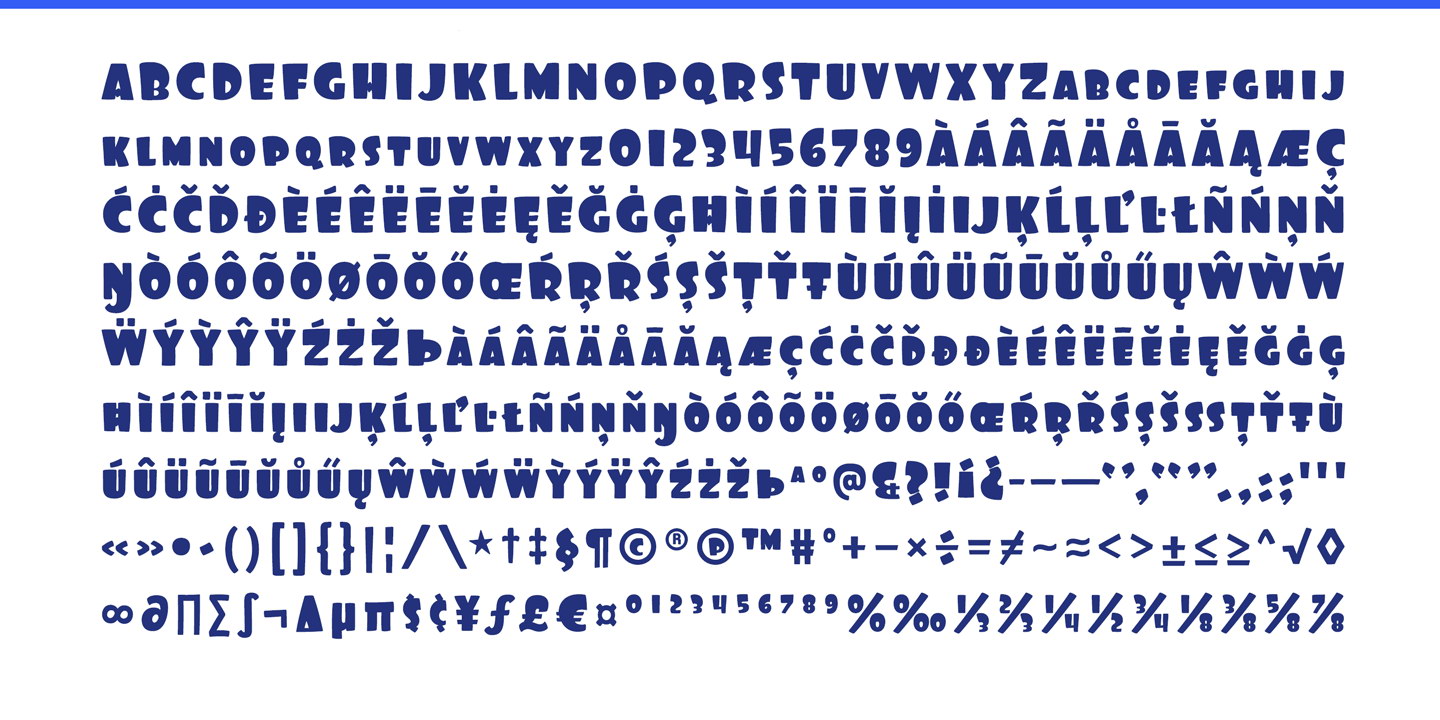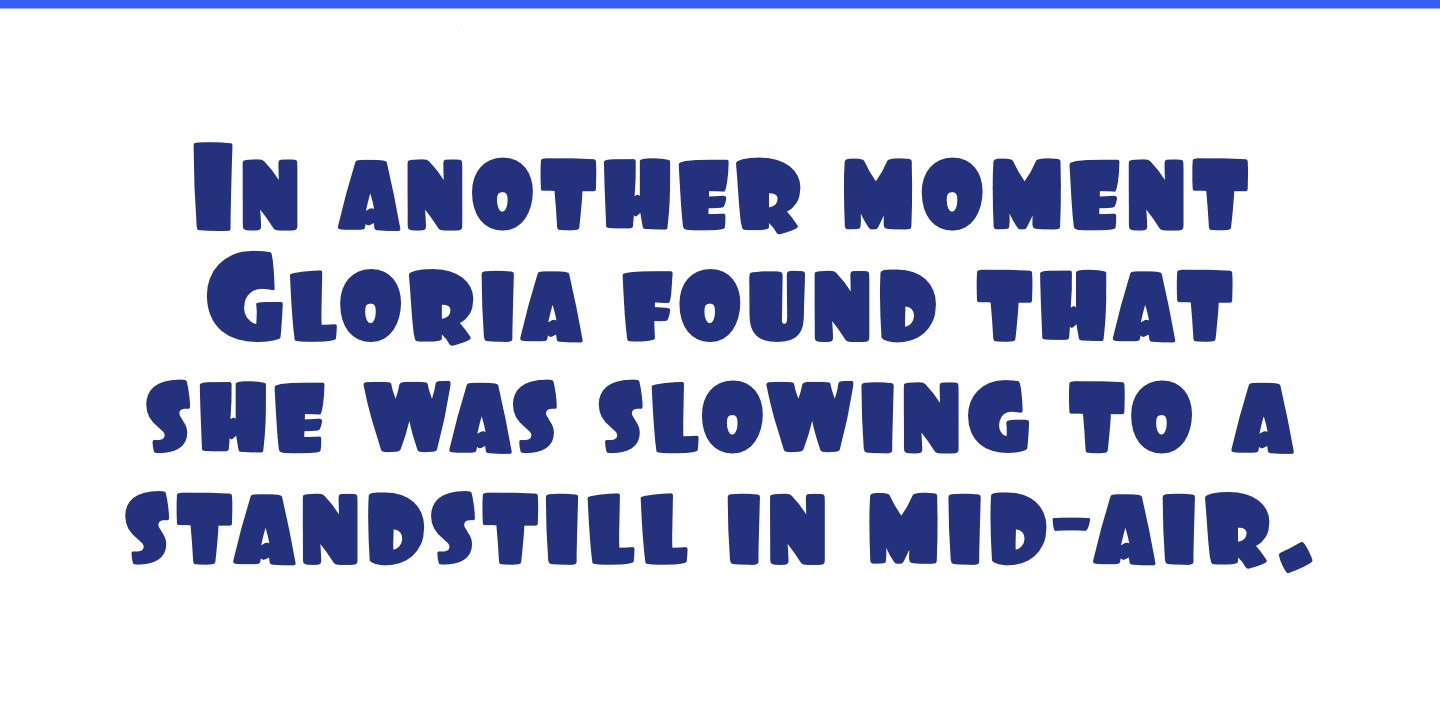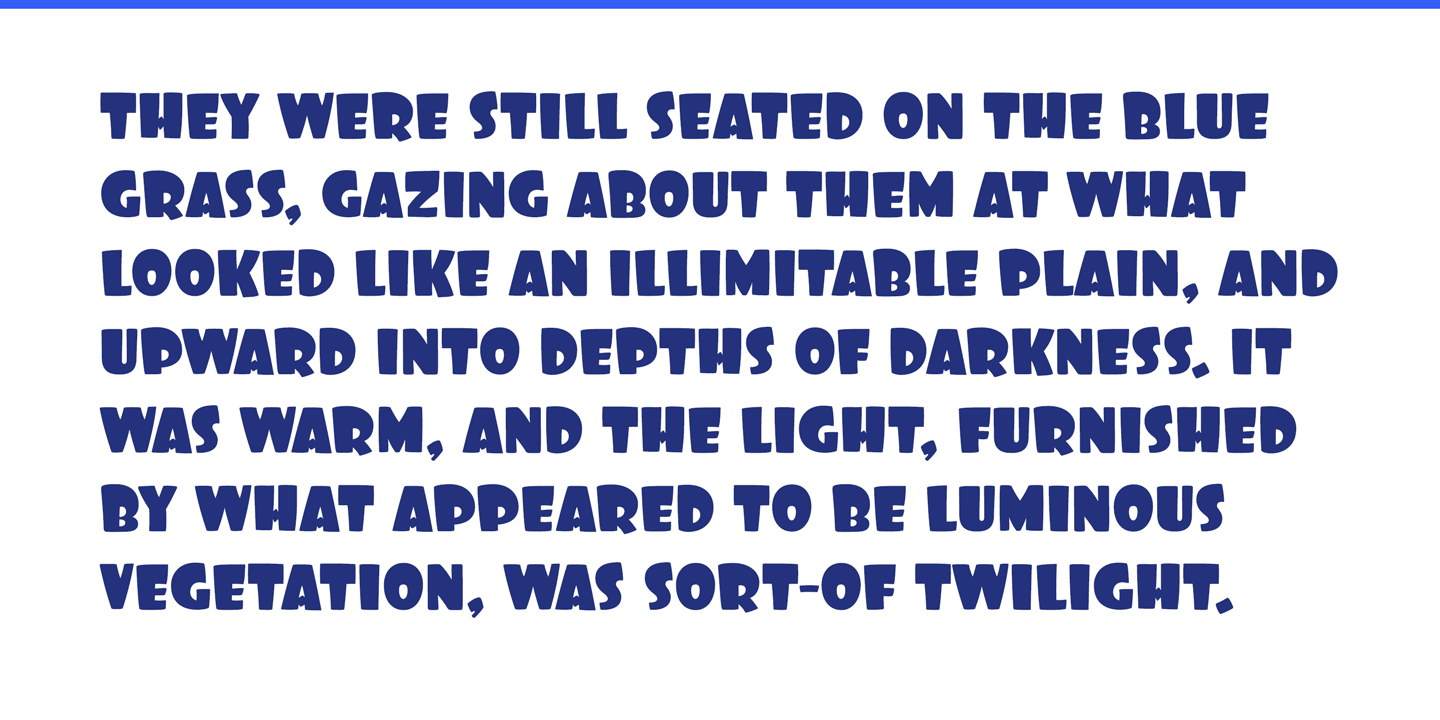
Foo Font is a bold, playful sans serif typeface with a chunky, irregular shape that gives it a fun and informal vibe. Its high x-height and tightly spaced letters make it eye-catching and perfect for headlines, logos, or branding that aims to be friendly and approachable. This font works well in children’s products, casual posters, and creative designs where a lively, energetic personality is desired.
Foo Font
About Foo Font
| Font family | Foo Font |
| Designer | Ray Larabie |